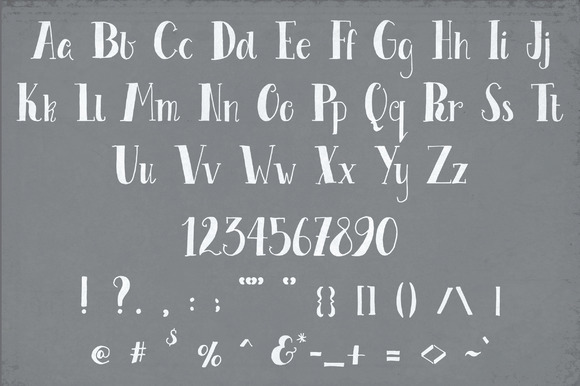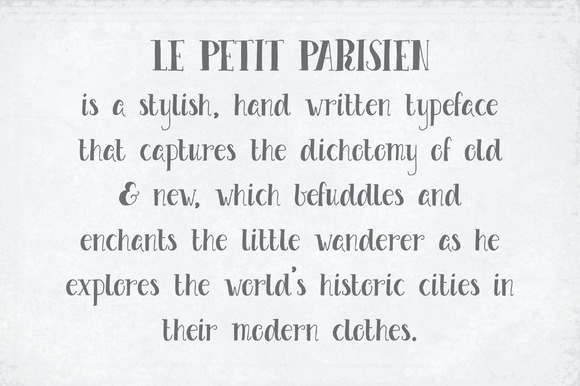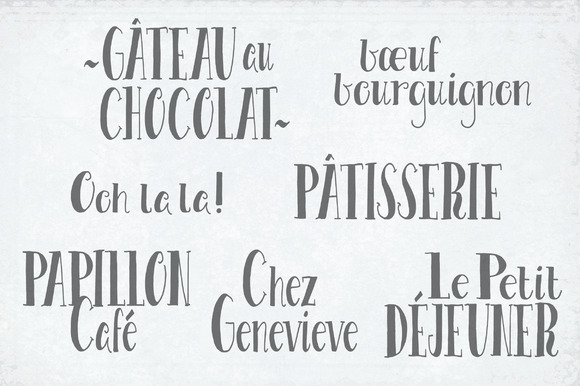
Introduction to Le Petit Parisien Font Font
Fonts play a crucial role in design, and the Le Petit Parisien Font font is a typeface that brings both character and versatility to any project. Whether you’re working on a branding project, a website, or a print design, the Le Petit Parisien Font font offers a unique style that can elevate your work.
Le Petit Parisien is a beautiful hand drawn and handmade font and is an ode to the charm of one of the worldβs most historic cities: Paris Le Petit Parisien is combination of modern design with a nostalgic feeling.
This gorgeous font makes you feel like you are sitting on a small terrace in the sun, sipping on a cup of coffee The font includes all standard characters and includes also the currency symbols, copyright, trademark & fractions and also includes all the accents needed to write most European languages.
Key Features of Le Petit Parisien Font Font
Why Choose Le Petit Parisien Font Font?
The Le Petit Parisien Font font is more than just a typeface β it’s a design tool that helps you communicate your message with style and clarity. Its unique character set and versatile design make it suitable for a wide range of applications, from elegant invitations to bold headlines.
With its carefully crafted letterforms and balanced proportions, the Le Petit Parisien Font font ensures readability and visual appeal across all mediums.
What makes Le Petit Parisien Font font special?
The Le Petit Parisien Font font stands out with its unique design, exceptional readability, and versatility across various design applications.